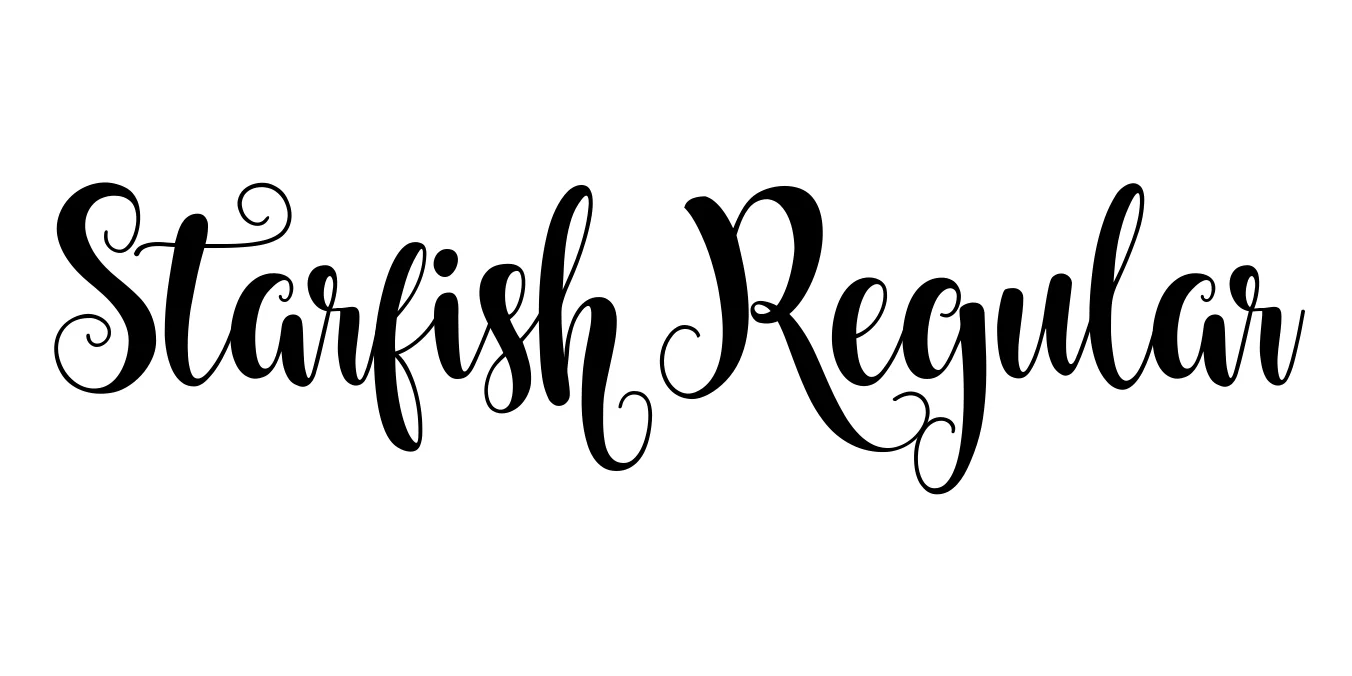
Starfish Regular
Designed by Francis Chouquet
| Font Name | Starfish |
| Designer | Francis Chouquet |
Starfish Regular is a vibrant and playful script typeface designed to evoke a sense of handmade charm and casual elegance. It features fluid, brush-like strokes that give it a rhythmic and organic feel, making it ideal for creative projects that require a personal touch and a bit of whimsical flair. The font's character is defined by its bouncy baseline and natural flow, which makes text appear as though it were penned by hand.
Originally inspired by coastal aesthetics and relaxed calligraphy, this font stands out for its unique personality and legible ligatures. It has become a popular choice among graphic designers for branding, social media graphics, and invitation designs, successfully bridging the gap between artistic expression and functional typography. Whether used for a summer-themed promotion or a boutique logo, Starfish Regular brings a friendly and approachable atmosphere to any layout.